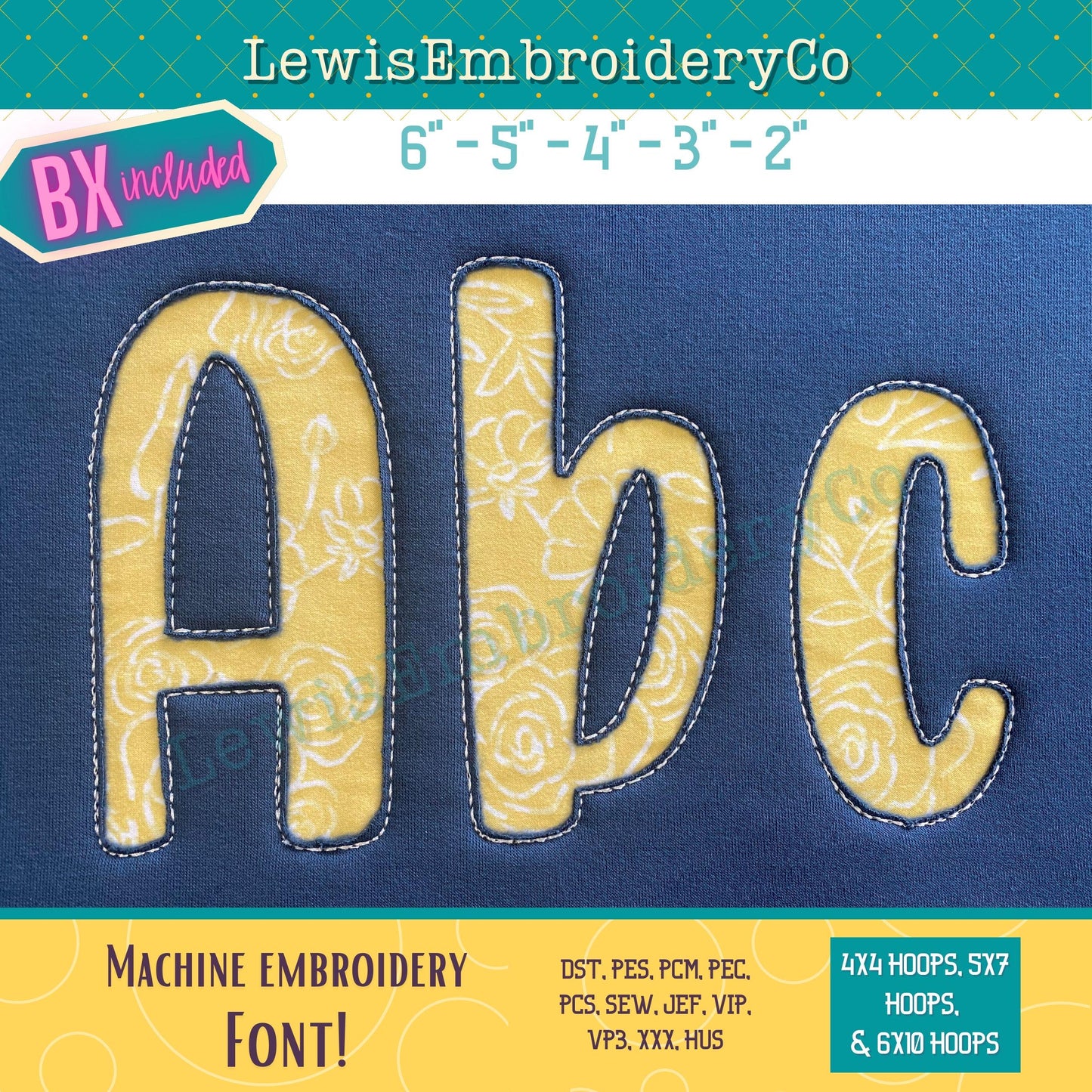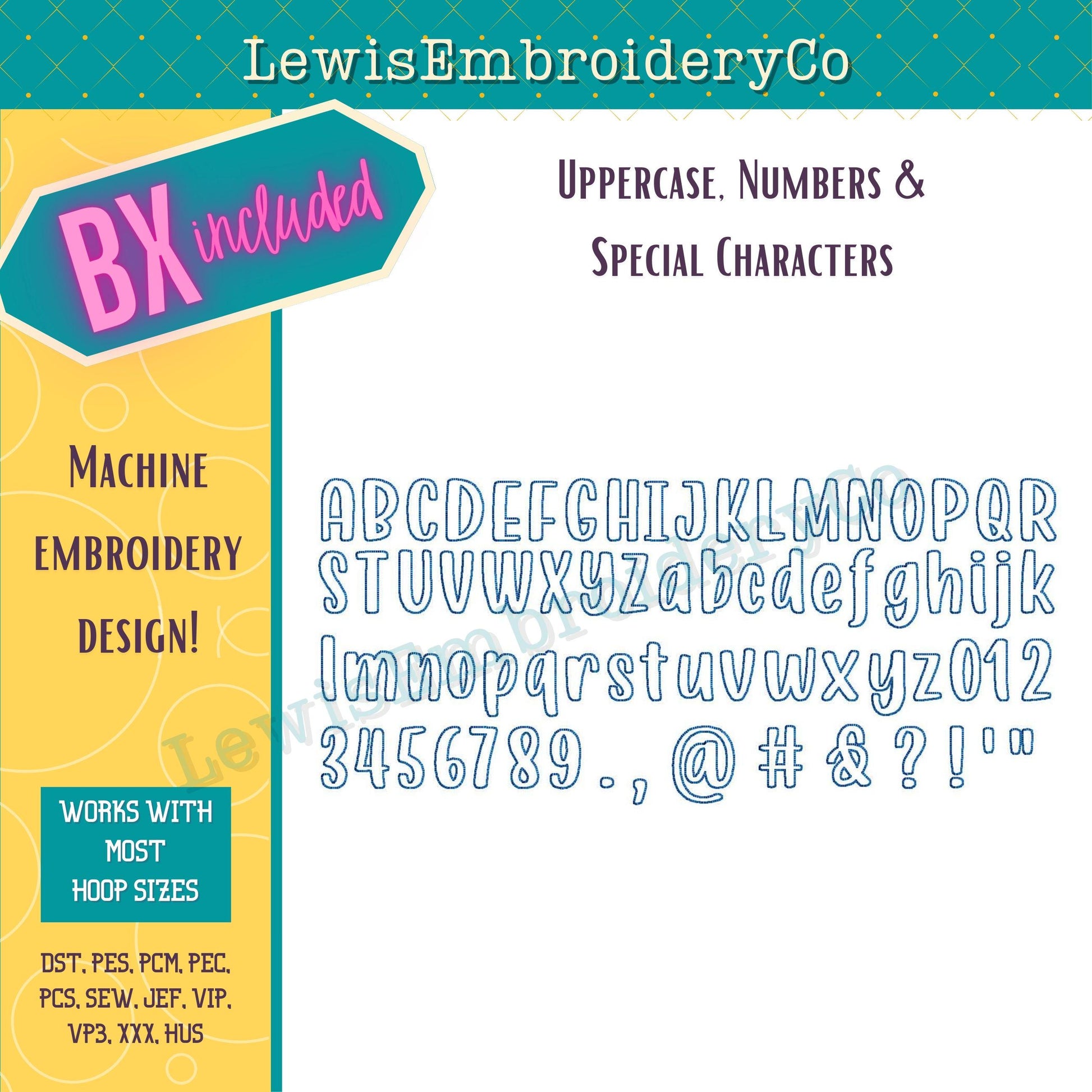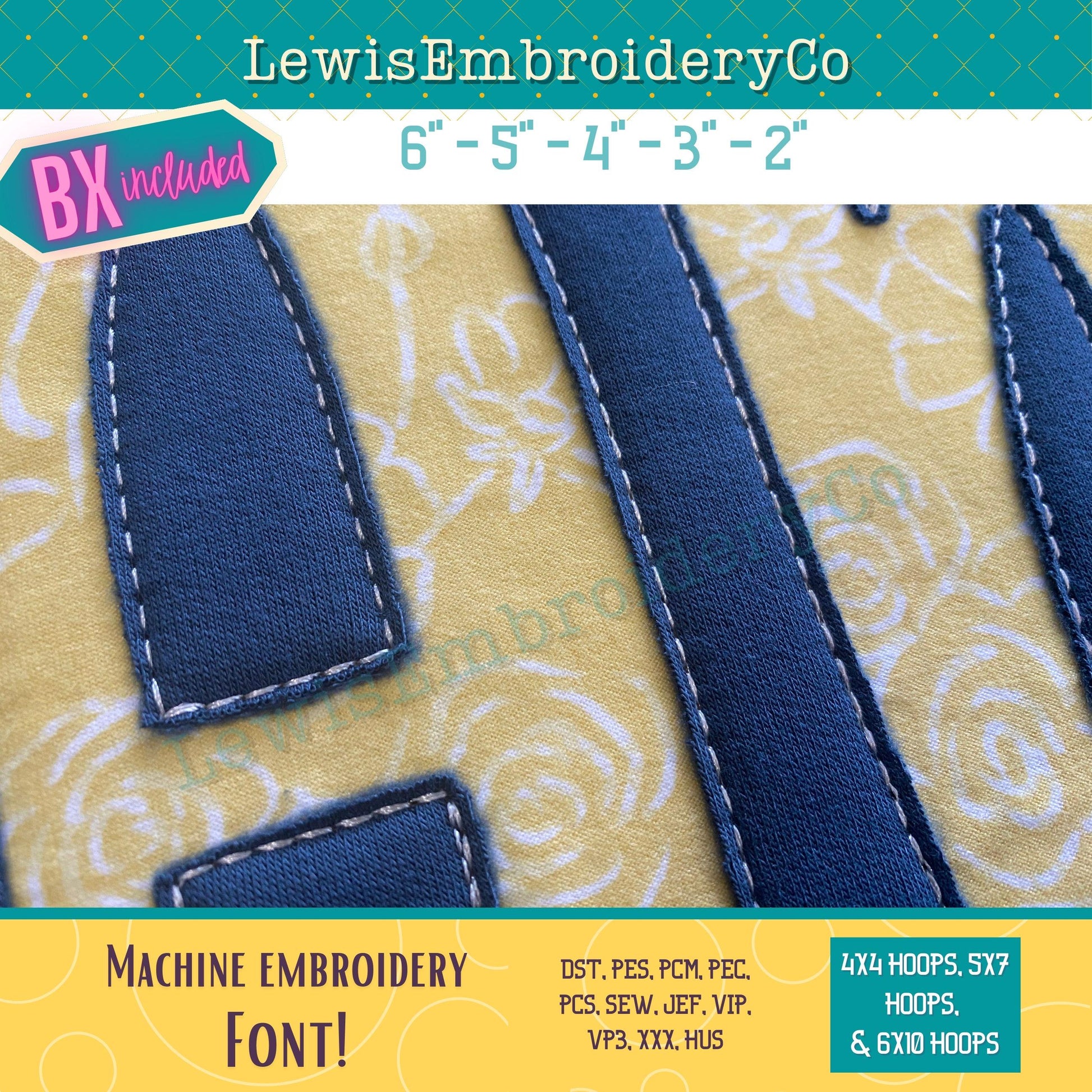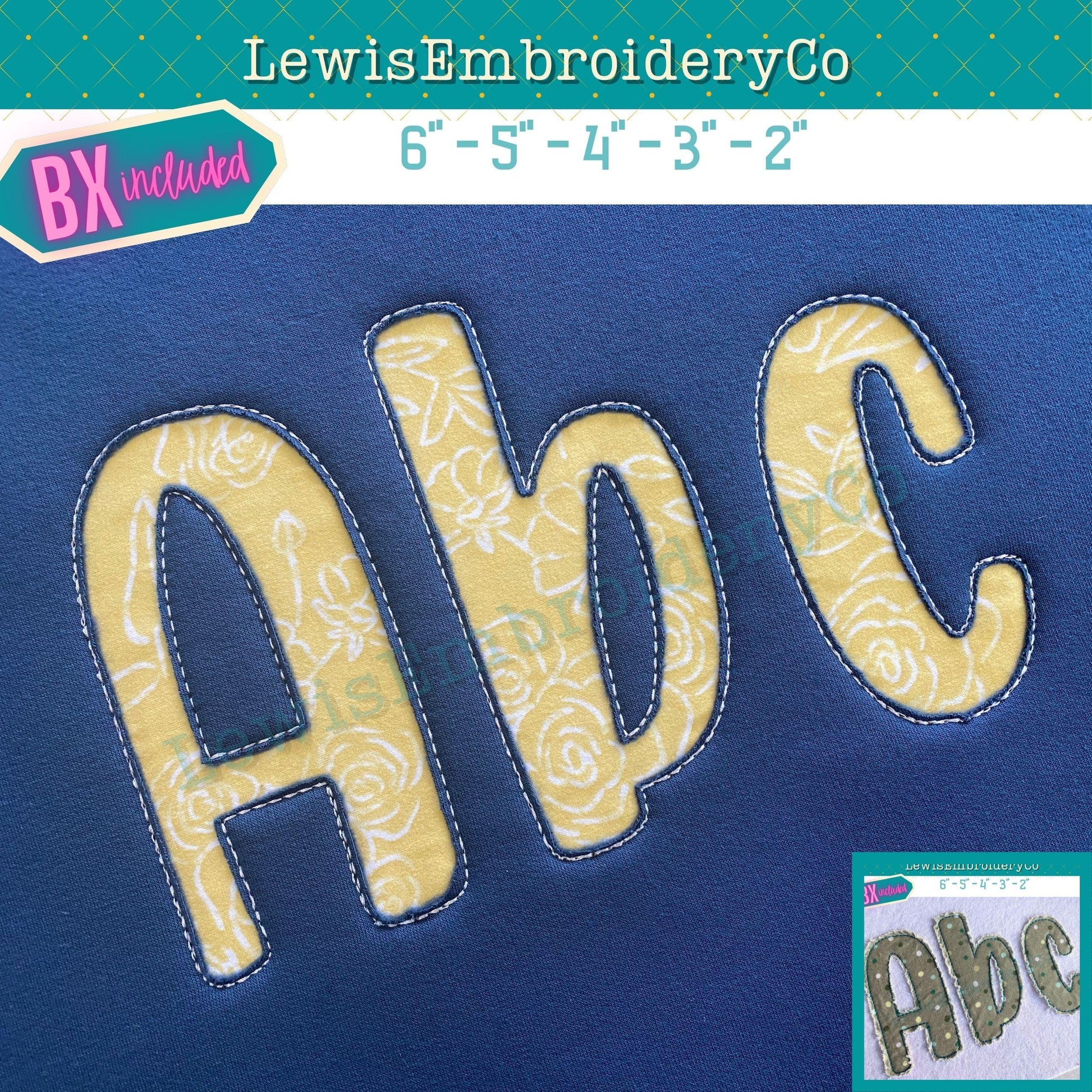
Reverse Applique, Machine Embroidery Font - with BX - (PDF Tutorial Included)
Reverse Applique Embroidery Font - Cute Bubble Letters - Raw Edge Applique Alphabet - Bean Applique Embroidery Font - Mama Sweatshirt
This fun font will add a nice touch to any of your projects!